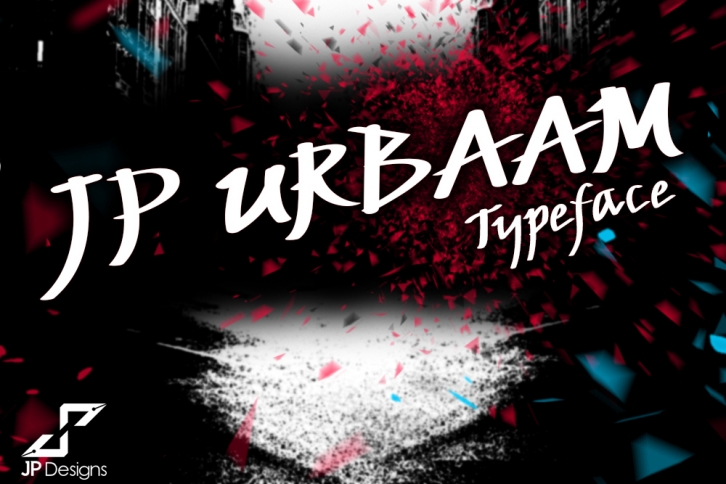
JP Urbaam is a gorgeous font that was realeased on June 23, 2018. The font can be used in many style contexts and design environments. Perfect for invitations, magazines, websites, logos, and more! It was designed by LJ Design Studios and the file size is 10.22 MB. Thanks for checking out this font!